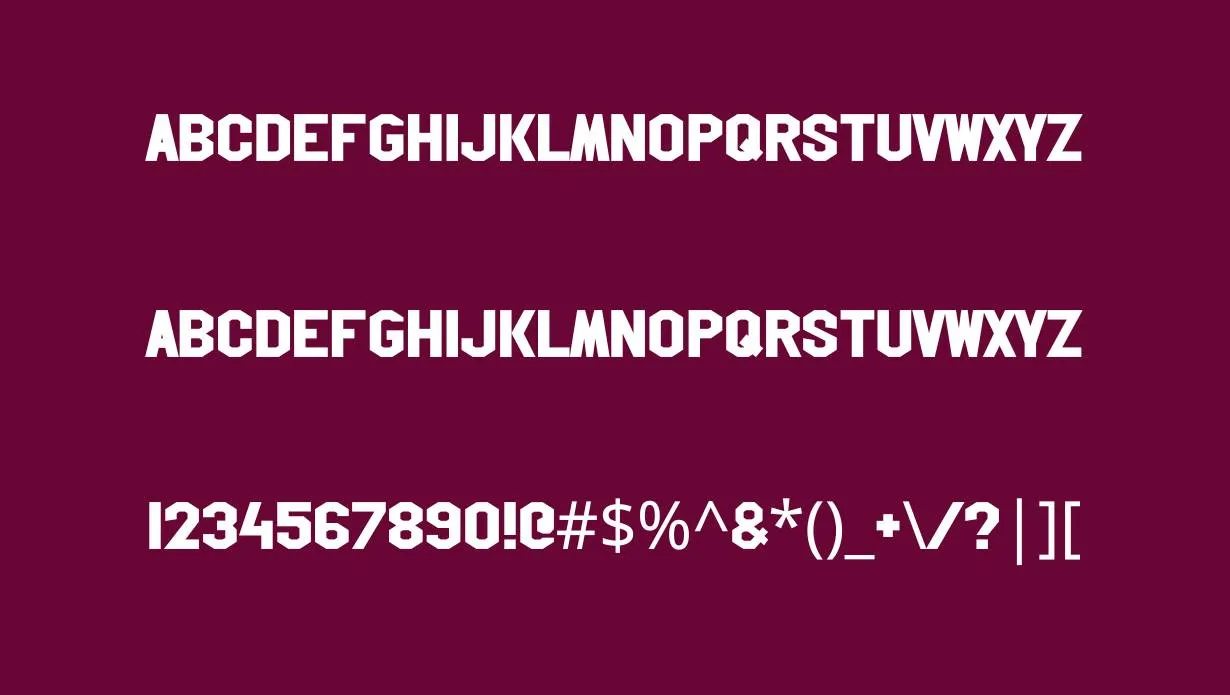
Hollywood Hills Font is inspired by the typography associated with the iconic Hollywood sign.
It’s often used in projects related to the entertainment industry, movie posters, and designs that aim to capture the glitz and glamour of Hollywood.
| Name | Hollywood Hills Font |
| Designer | wsc |